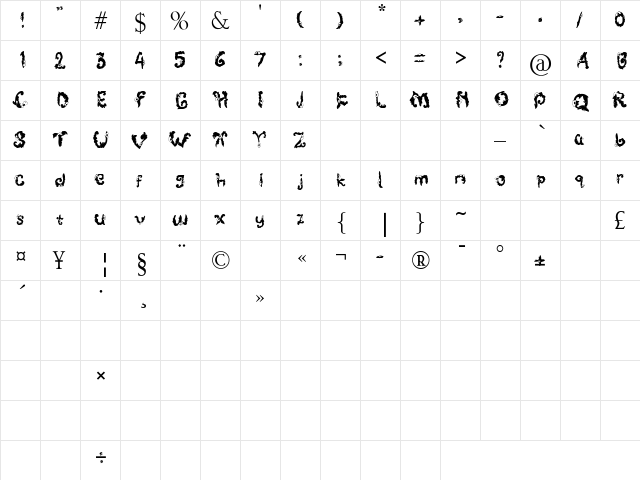
PatraCina-DiyahANF Regular
Design Context for PatraCina-DiyahANF Typeface
PatraCina-DiyahANF is a composed and adaptable typeface that performs quietly and consistently across a wide range of design contexts.